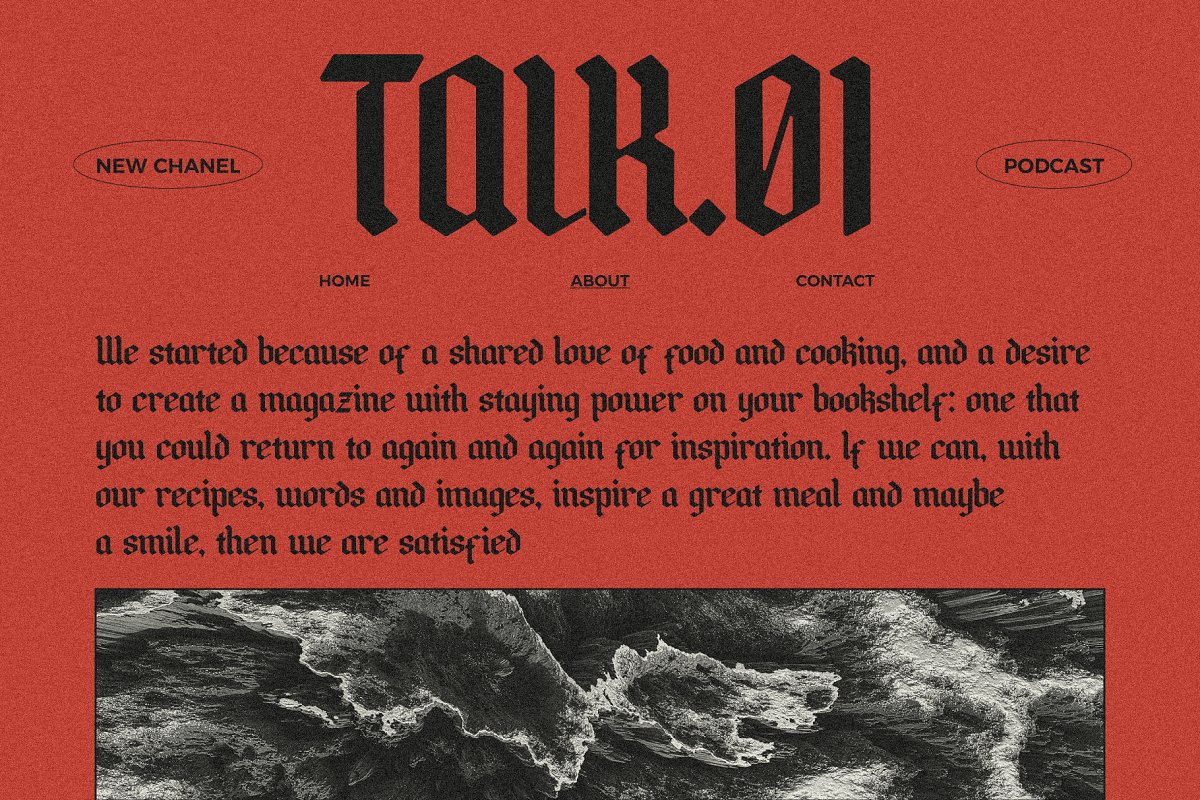
About the Rumblekill Rounded Blackletter
Rumblekill is a blackletter font in the retro style, Elegant and rounded, it adds a bold touch to your projects and will inspire you to create something unique and modern, This font is also equipped with alternative characters, Ligatures, and multi-language support, Rumblekill Font is ideal for headings, flyers, greeting cards, product packaging, book covers, printed quotes, logotype, apparel design, and album covers